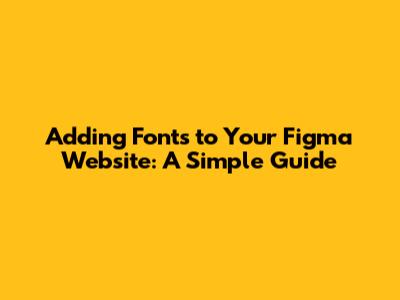
- Readability: The primary goal of any font is to be legible. If your users can't read your content, they're gone! Choose fonts that are easy on the eyes, especially for body text. Factors like the font's size, the contrast with the background, and the overall design play key roles.
- Brand Identity: Fonts are a fundamental part of your brand's visual identity. They help your audience instantly recognize and connect with your brand. Consistent use of fonts across all platforms (website, social media, marketing materials) reinforces brand recognition and builds trust.
- User Experience (UX): Fonts influence how users interact with your website. Different fonts have different moods, and they can make the difference between a user enjoying their time on your site and bouncing off immediately. Well-chosen fonts make the content more accessible and engaging.
- Accessibility: Consider users with visual impairments. Choosing accessible fonts ensures everyone can enjoy and understand your content. Avoid fonts that are overly thin or have complex letterforms, as these can be challenging to read for some users.
- Consistency: Keeping a consistent font system across your website is key. This could be sticking to a single font or pairing a header font with a body font, which enhances the overall design.
Choosing Your Fonts:
- First things first, you gotta pick your fonts! Think about your brand identity and what kind of message you want to send. Do you want something modern and clean or something a bit more playful? Google Fonts is a fantastic resource, offering a massive library of free, open-source fonts. Sites like Adobe Fonts and Font Squirrel are also great spots for finding fonts. Consider different font pairings, which means choosing a font for your headings and a different one for your body text.
Accessing Fonts in Figma:
Adding Fonts to Your Design:
- Now comes the fun part! Select your text layer. In the text properties panel, select the font you wish to use. You can also adjust the font size, weight (bold, italic), and other styling options directly within Figma. Experiment with different styles and see what fits the design. Remember to keep the fonts consistent across your design. Once you've added your fonts to the design, you might want to create text styles. This makes it easier to use the same fonts consistently across your project.
Using Figma Plugins for Fonts (Optional):
- Figma has a bunch of plugins that can make font management even easier. Google Fonts is one of the most popular. Install it, and you'll be able to browse, install, and use Google Fonts directly within Figma. Another useful plugin is Font Finder, which allows you to identify the fonts used in an image, which is super handy if you're trying to replicate a design you admire.
Font Management Best Practices:
- Keep It Consistent: Stick to a limited number of fonts throughout your project. Using too many fonts can make your design look cluttered and unprofessional. Two or three fonts, tops, is generally a good rule of thumb.
- Prioritize Readability: Always ensure that your fonts are easy to read. Consider the font size, line spacing, and contrast with the background color.
- Consider Font Licensing: Before using a font, check its licensing. Some fonts are free for commercial use, while others require a license.
- Test on Different Devices: Make sure your fonts look good on all devices and screen sizes. Responsive design is key!
Font Not Appearing:
- Problem: You’ve installed a font, but it’s not showing up in Figma. Solution: First, make sure you've properly installed the font on your computer's operating system (Windows or macOS). Sometimes, you'll need to restart Figma after installing a new font. Also, double-check that the font file is valid. If it still doesn't appear, try clearing your Figma cache. You can do this by going to
Font Rendering Incorrectly:
- Problem: The font looks different in Figma than it should, or it appears pixelated or distorted. Solution: This could be due to a few things. Make sure you’re using the correct font file (TTF or OTF format). Experiment with different font weights and styles to find the best-looking option. Check your Figma's rendering settings (you can find these in the Preferences). Sometimes, setting the rendering quality to